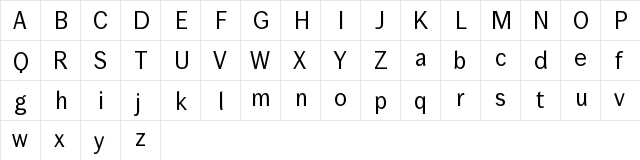
Wendelin Regular
Design Context for Wendelin Typeface
Wendelin offers clean, dependable letterforms without strong stylistic allegiance, making it a practical choice for designers who need flexibility.